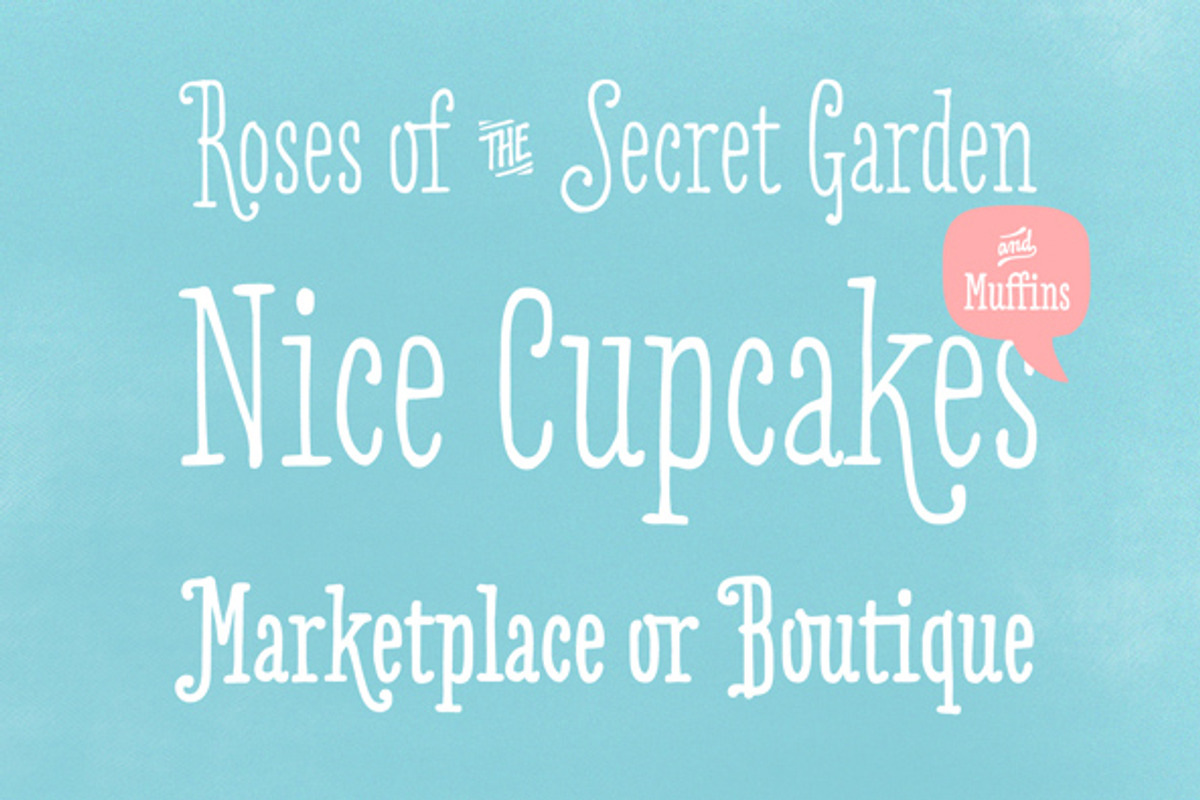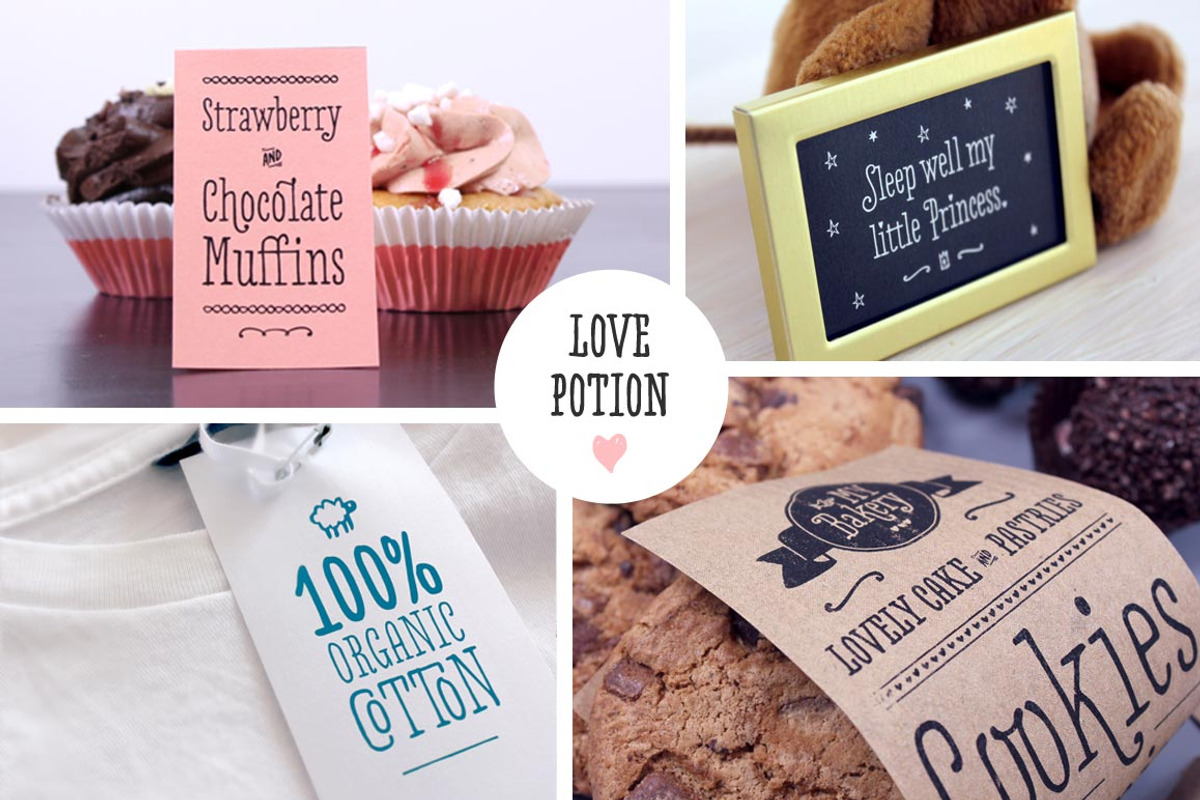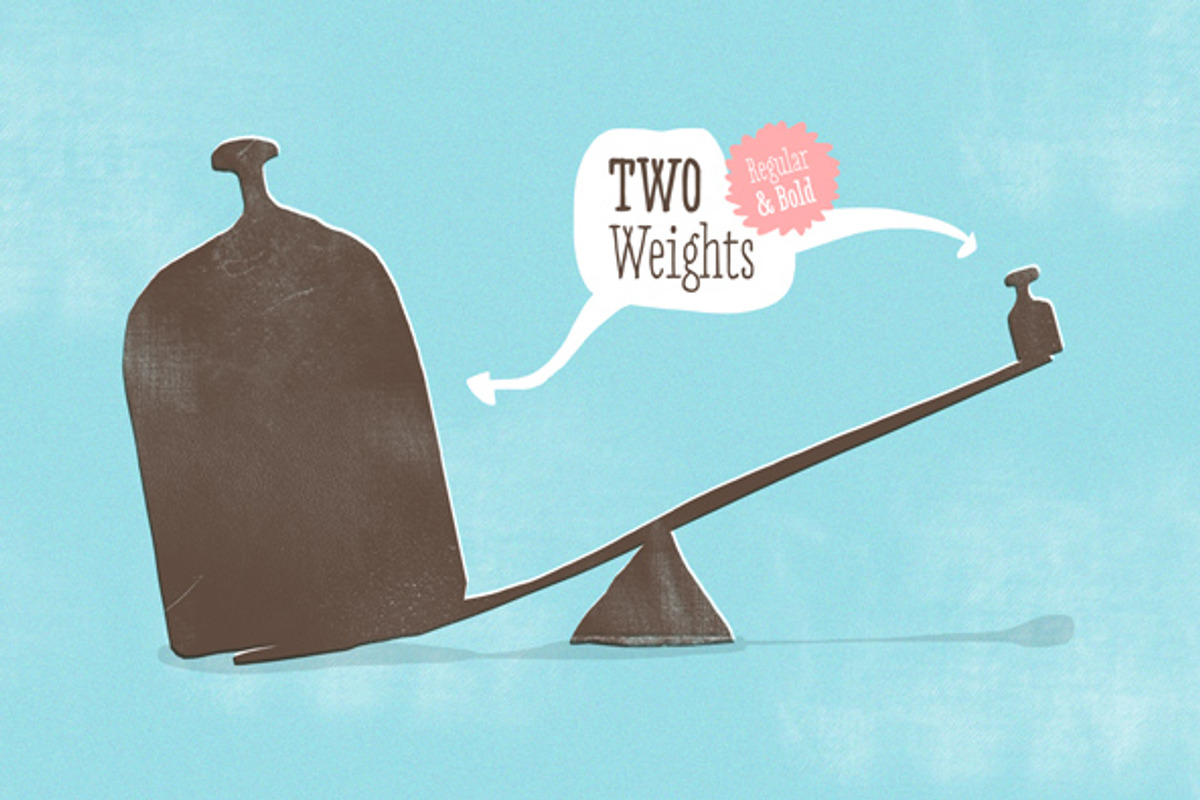
Love Potion
Love Potion by HvD Fonts is a font selected for branding, posters, packaging, typography.
- Three fonts (Regular/Bold/Ornaments) that include extravagant Ligatures, Swash Letters, Catchwords, Arrows, Borders and other little special
- In addition to that the fonts contain Standard ligatures, Swash Letters, Catchwords, Arrows, Borders and much more.
Why Love Potion is worth a look
Love Potion by HvD Fonts fits naturally into Branding, posters, packaging, typography.